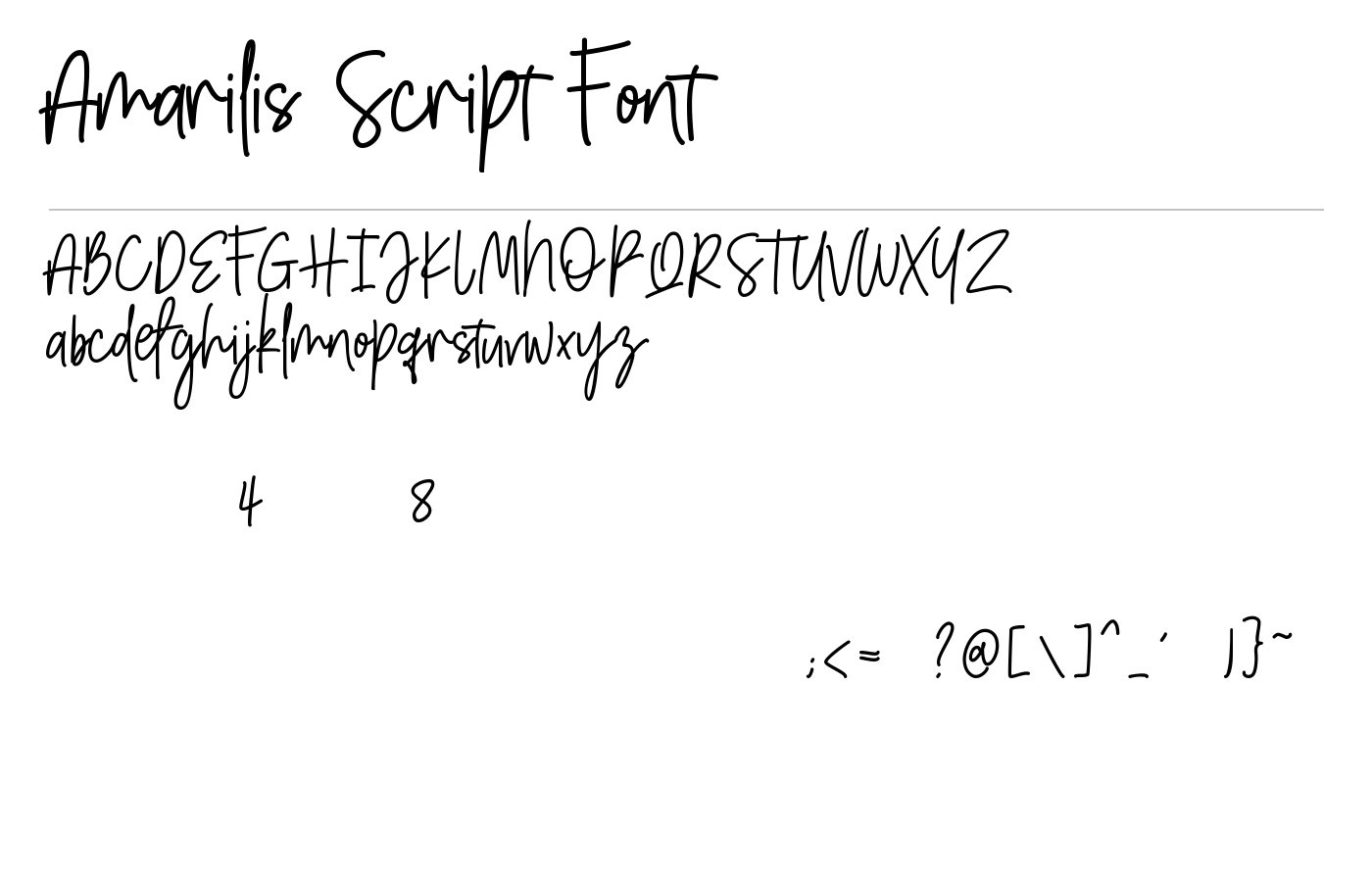
Amarilis is a casual and playful script font with a hand-drawn, slightly irregular look that adds personality and warmth to any design. Its tall, slender letterforms and lively strokes make it ideal for creative projects, invitations, and branding that aim for a friendly and approachable feel. This font works well in headlines and logos where a personal, informal touch is desired.
Amarilis Font
About Amarilis Font